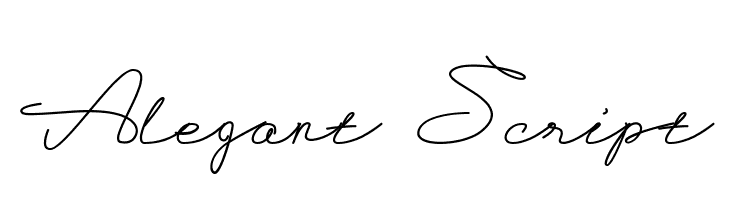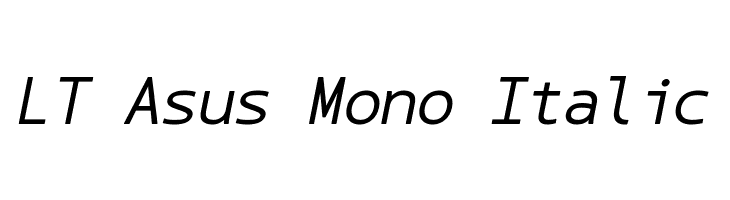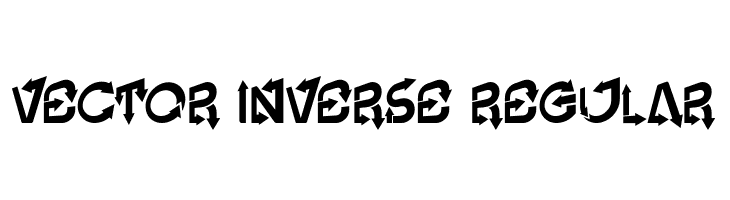
A bold, expressive script font with a hand-drawn, artistic style.
A sleek, modern, light italic sans-serif font with elegant elongation.
A bold, expressive handwritten font with dynamic strokes and playful swashes.
A bold, blocky font with a retro, vintage style and tight character spacing.
A modern, italic sans-serif font with medium weight and excellent readability.
A bold, pixelated typeface with a retro digital aesthetic.
A bold, hollow font with a three-dimensional, futuristic style.
An elegant, flowing script font with graceful curves and smooth lines.
A flowing, elegant cursive font with interconnected letters.
A cursive, handwritten font with elegant, flowing strokes.